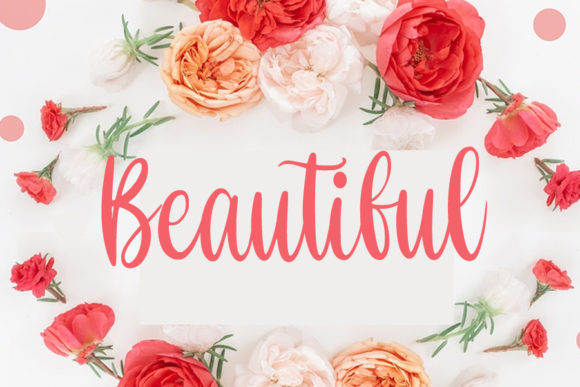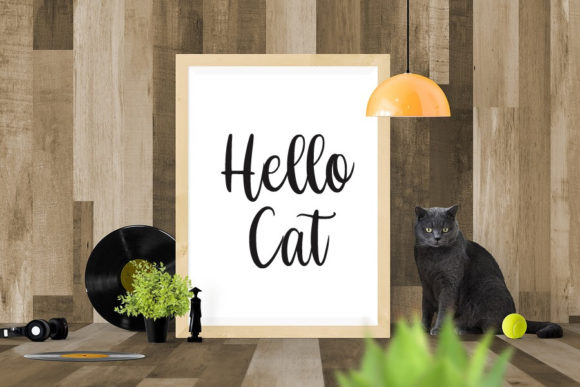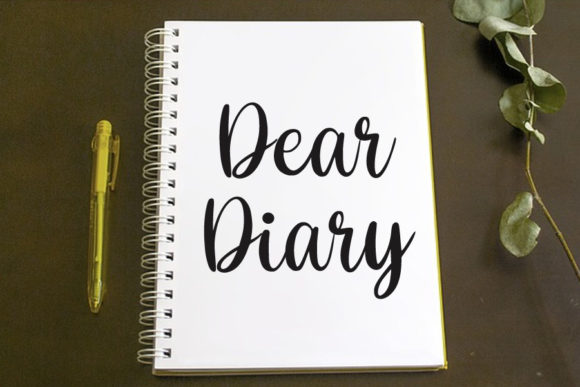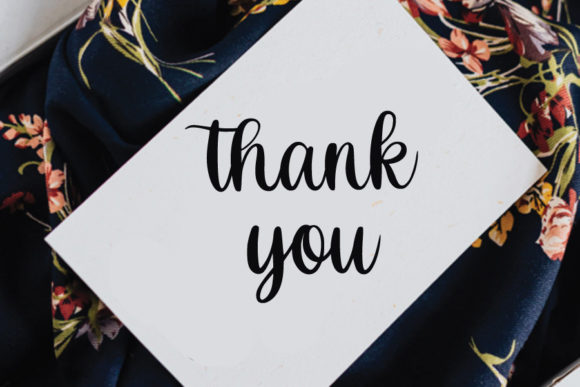
Wonderful Font
About Wonderful Font
“Wonderful” is a fresh and beautiful font that serves as a versatile tool for a range of design purposes, making it ideal for creating eye-catching YouTube banners, impactful cover logos, elegant wedding invitations, professional ID cards, engaging flyers, and various craft projects. Incorporating this font into your designs not only enhances their visual appeal but also contributes to the progress and development of your business.
The simplicity and uniqueness of “Wonderful” make it stand out, allowing your designs to make a memorable impact. Whether you are crafting promotional materials, business collateral, or personal projects, this font adds a touch of freshness and beauty, ensuring that your visual communication is both effective and aesthetically pleasing.
The adaptability of “Wonderful” to diverse design contexts, from digital platforms to physical materials, makes it a valuable asset for your creative toolkit. Its clean and stylish aesthetic lends itself well to modern design trends, providing a contemporary feel that resonates with a wide audience.
Incorporating “Wonderful” into your designs not only enhances the visual appeal but also communicates a sense of professionalism and creativity. Its versatility allows it to be applied to various projects, contributing to the overall development and success of your business or personal endeavors.
In summary, “Wonderful” is more than just a font; it’s a versatile and impactful design element that brings freshness and beauty to your creative projects. Whether you’re working on digital or print materials, this font’s simplicity and uniqueness make it a valuable asset for enhancing your visual communication and contributing to the progress of your business or creative ventures.